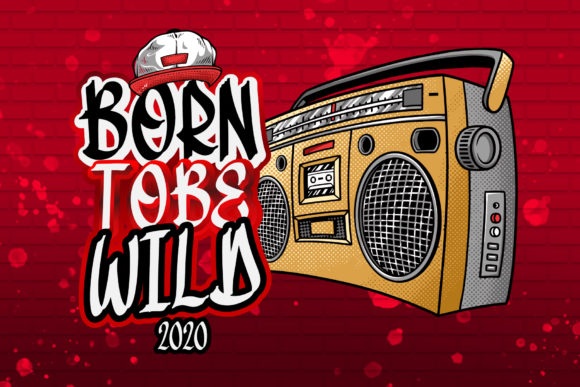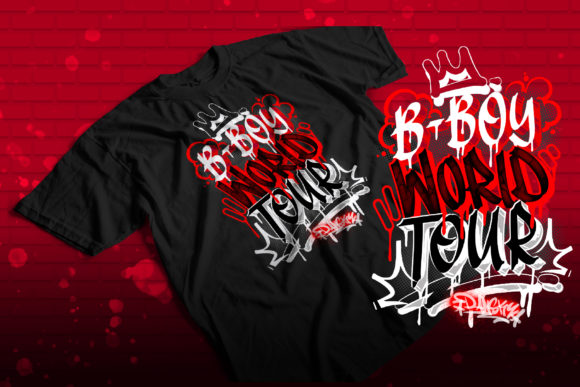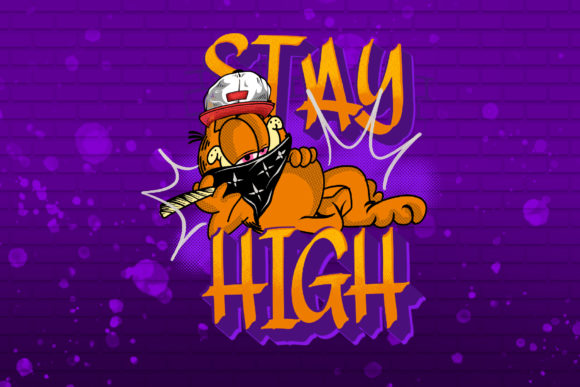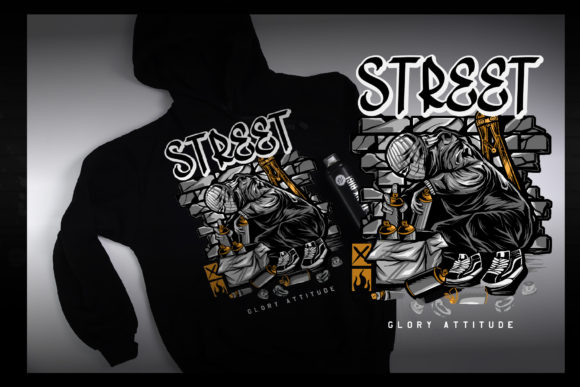
Introduction to Dirty Droop Font
Dirty Droop is a bouncy and quirky display font.
It will add a fresh and contemporary touch to your designs Add this unique display font to each of your creative ideas and notice how it makes them stand out.
Key Features of Dirty Droop Font